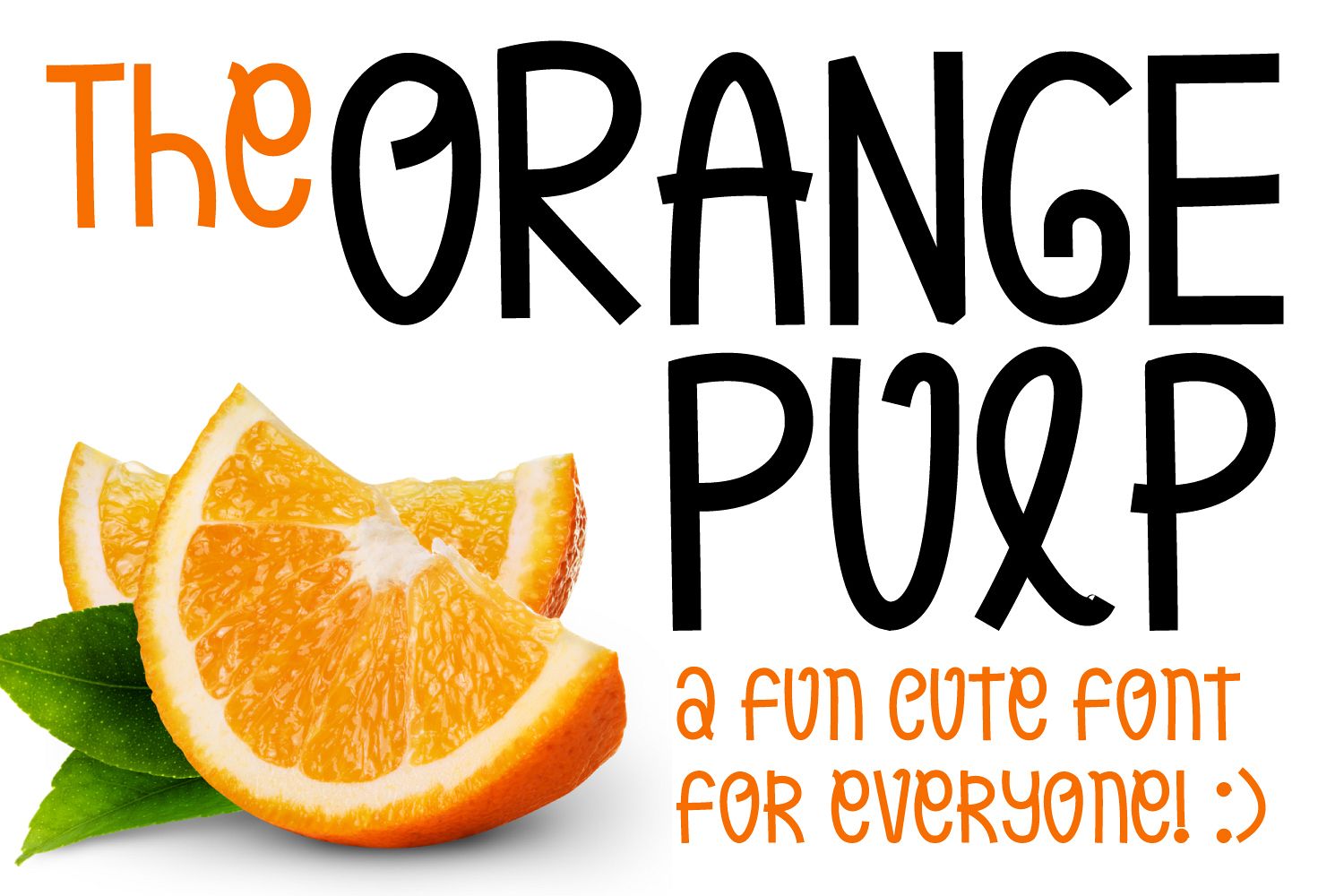
Orange Pulp : Sweet and Tasty Font
One of the cutest fonts with food symbols font available for you to get right now with amazing price. This font is specially designed for the all the creative people around the world.
This font is all you need with almost 52 Food font symbol which you can use to create amazing designs in no time. You can change the stroke level, width or anything to make a perfect design. Beware this font is useful for all types of industries and not only for food only. You can grab this amazing offer right now.
- A TO Z Upper case letters
- a to z Lower Case Letters
- 0 to 9 Numbers
- All special character chosen one
- 52 Food Item Font